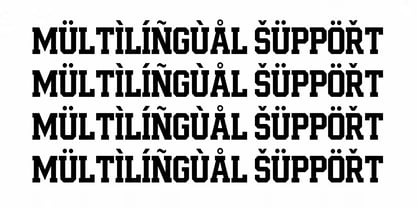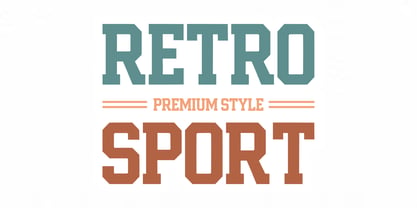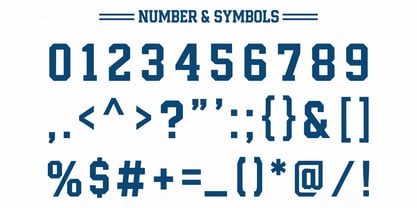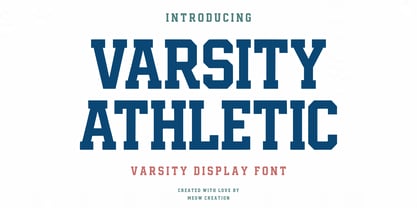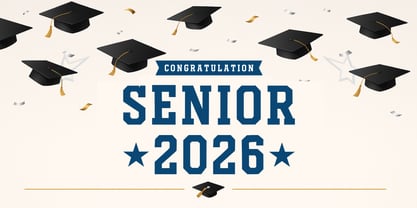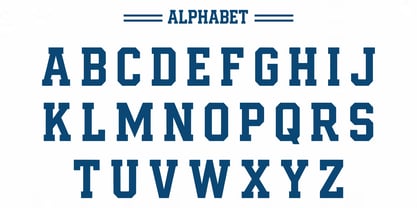
Varsity Athletic
The Varsity Athletic Font Family was designed by Md Asrafujjaman and published by Meow Creation Font. Varsity Athletic contains 1 styles. More about this family
Varsity Athletic is a robust collegiate-style display font inspired by classic sports lettering and traditional university graphics. Its bold block shapes and clean structure create a powerful, confident appearance. The font includes uppercase letters, numbers, symbols, and multilingual support, making it versatile and easy to use across various languages. Perfect for t-shirts, team logos, posters, and merchandise, Varsity Athletic delivers a bold, professional, and authentic varsity feel to every design.
Varsity Athletic